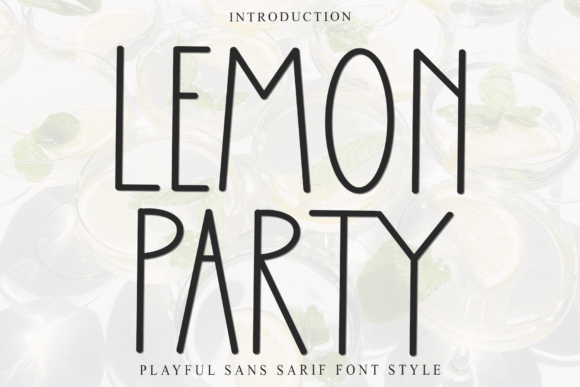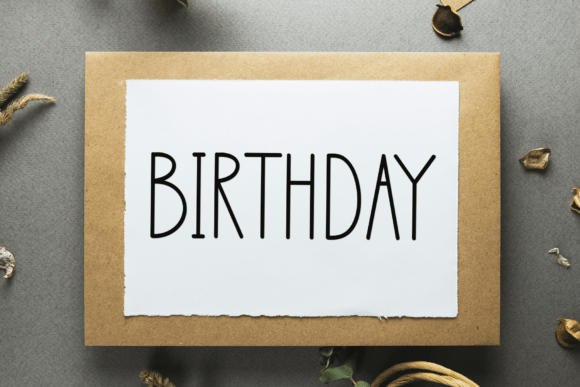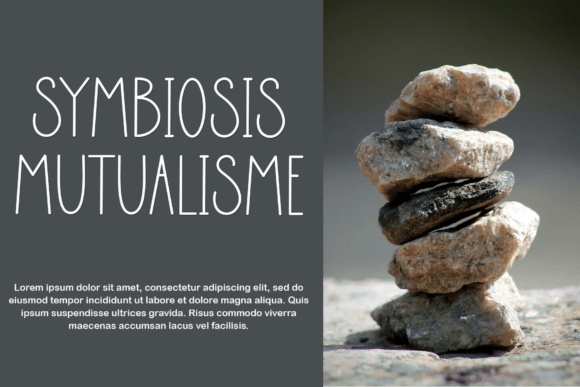
Lemon Party Font
About the Lemon Party Font
Add a touch of class to your work with the Lemon Party Font, a truly exceptional typeface. Lemon Party is a casual and creative font that exudes warmth and friendliness. Its round, playful strokes create a relaxed and approachable feel, perfect for personal projects, invitations, and social media graphics. The font’s charming, hand-drawn aesthetic adds a fun and unique touch to any design.
Lemon Party’s playful energy makes it ideal for headlines, short text blocks on posters or packaging, and social media posts. Its informal style, however, is less suitable for body copy or UI elements where readability over extended text is crucial. Avoid using it for lengthy paragraphs or applications requiring high levels of screen clarity.
This font pairs well with clean sans-serif fonts like Open Sans for a balanced contrast of playful and professional, or a more geometric sans-serif like Montserrat to accentuate its hand-drawn charm. A classic serif like Garamond could also be used for supporting text, creating a sophisticated yet approachable feel.
The overall personality is best described as cheerful and approachable, making it a strong choice for brands targeting a young, fun-loving audience or projects focused on creating a warm and inviting atmosphere.